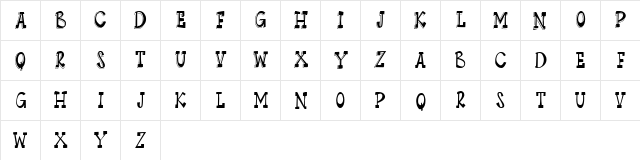
SharonsShadows Regular
Design Context for SharonsShadows Typeface
SharonsShadows is built around its visual character rather than neutral utility — its distinctive forms are designed to make an impression at display sizes.
Font Pairing: Pair with a clean neutral sans-serif for body copy to let SharonsShadows's character lead without overwhelming the composition.
Pro Tip: Treat SharonsShadows as the centrepiece of your typographic hierarchy. One strong heading set in a decorative face can carry an entire layout.